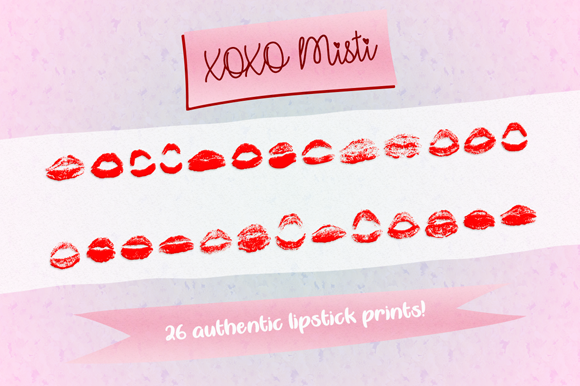
XOXO Misti Font
Adorn your designs with a touch of love and affection using XOXO Misti Font! Dive into a delightful collection of amorous lips, meticulously crafted to infuse your creations with a dash of romance. Each delicate glyph exudes a charm that will leave your projects bursting with heartfelt expressions.
XOXO Misti Font is the ultimate choice for crafting enchanting designs that speak to the heart. Whether you're a seasoned designer or just starting your creative journey, this font family will become your trusted companion. Its dingbat style offers endless possibilities, allowing you to effortlessly add a touch of romance to invitations, cards, scrapbook layouts, and more.
Unleash your creativity and let your imagination soar as you explore the boundless applications of XOXO Misti Font. Its versatility knows no bounds, making it the perfect choice for both personal and professional projects. Add a spark of romance to your social media posts, elevate your branding materials, or create stunning visuals for your online store.
Embrace the power of XOXO Misti Font and let your designs blossom with love and affection. Its whimsical lips will transform your creations into captivating expressions of the heart, leaving a lasting impression on your audience. Join the ranks of satisfied users who have discovered the magic of XOXO Misti Font and elevate your designs to new heights of enchantment.